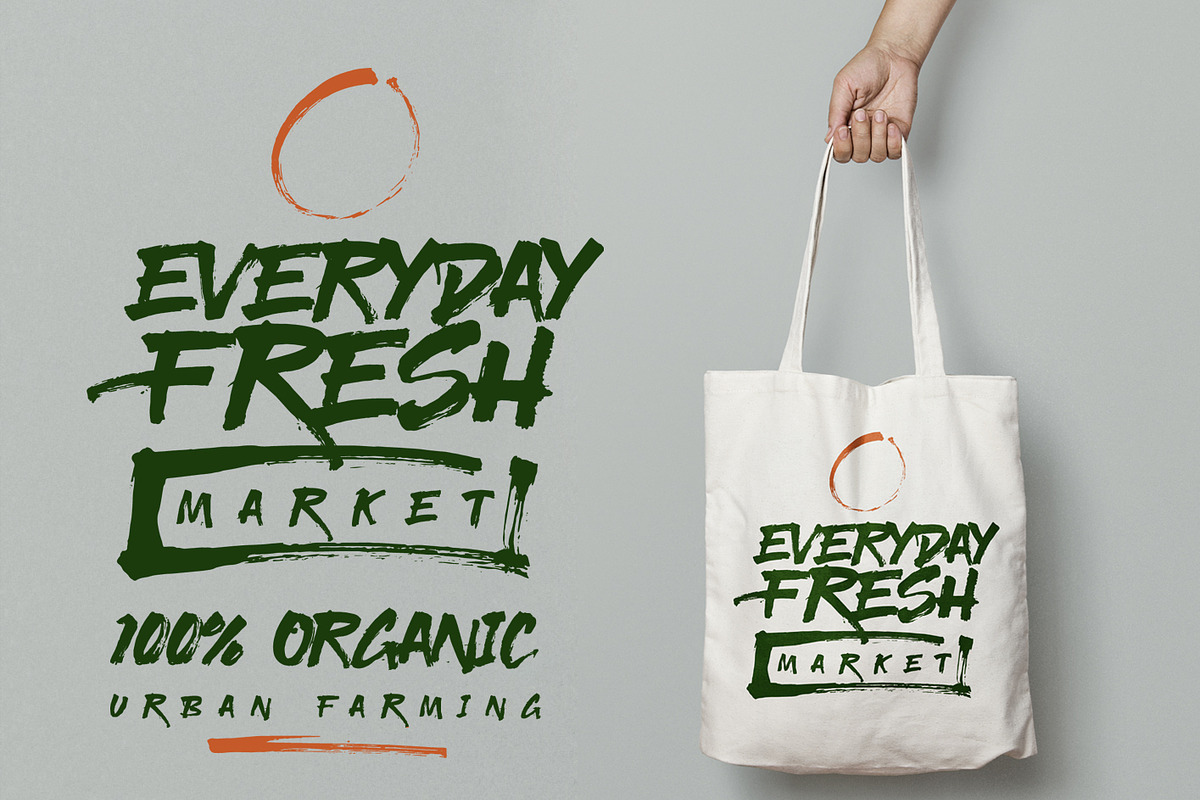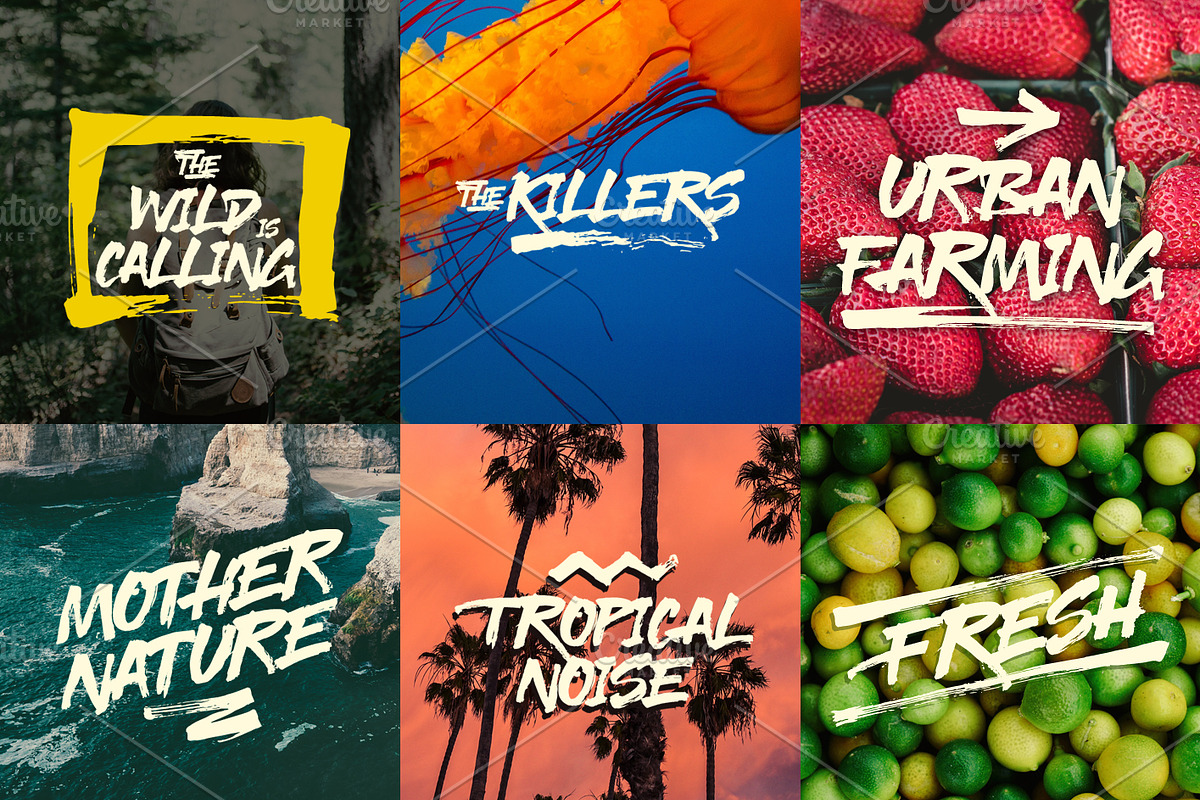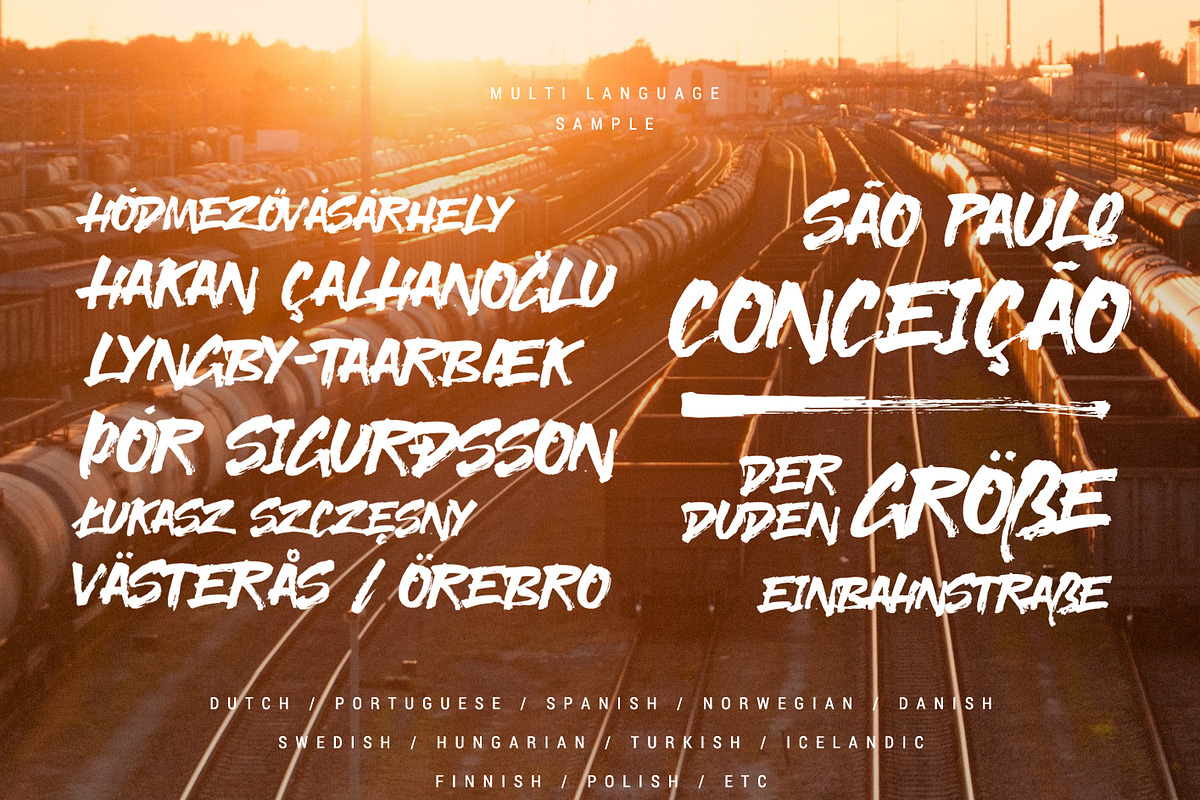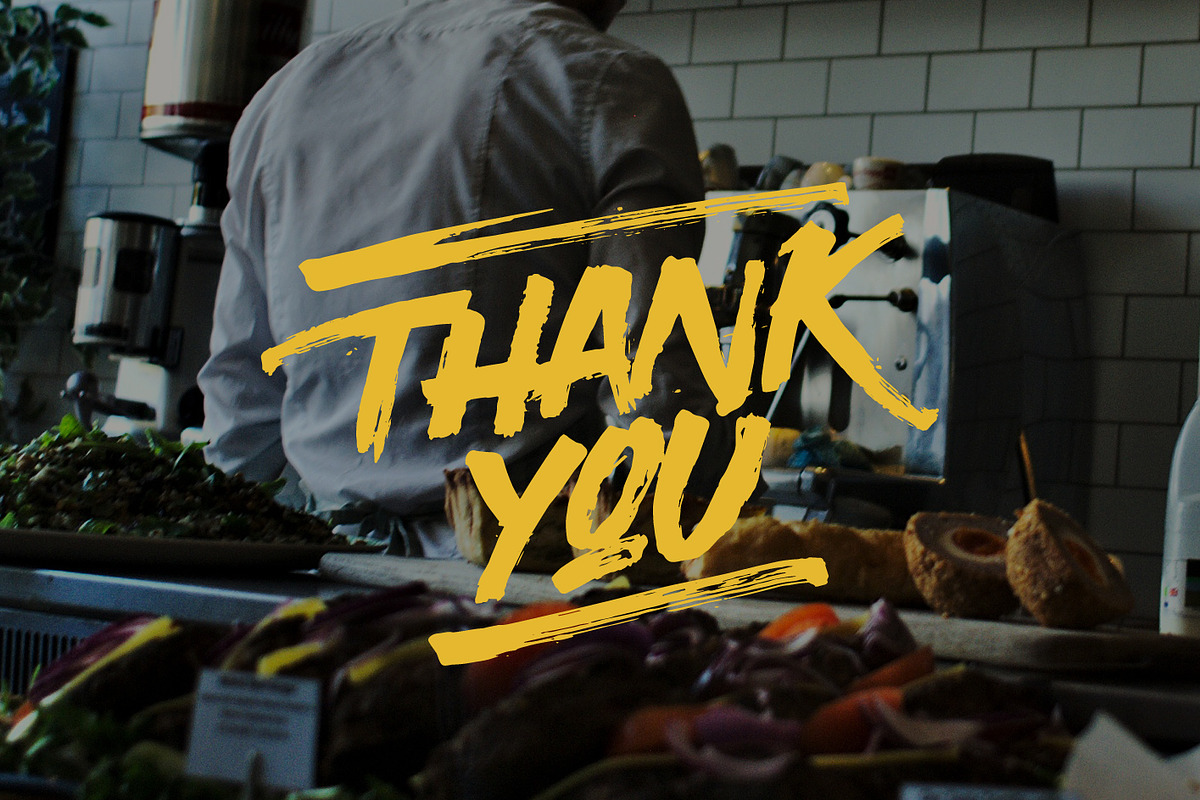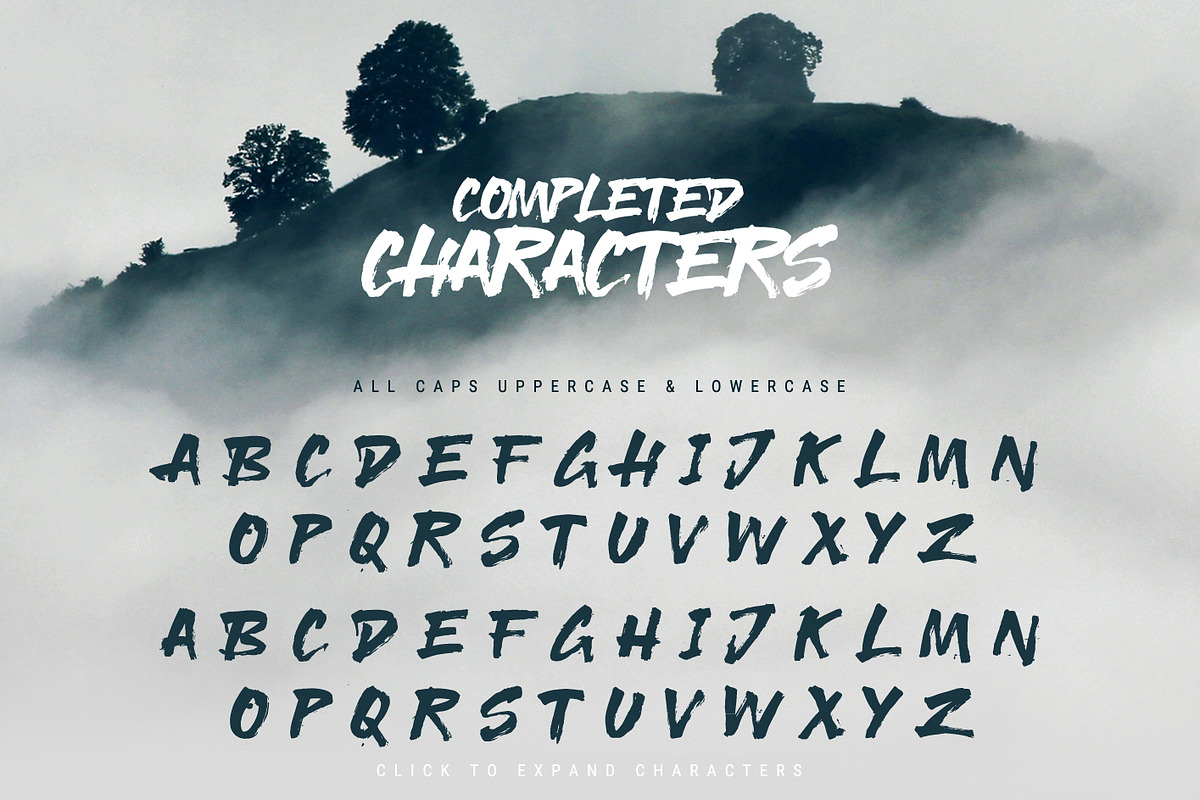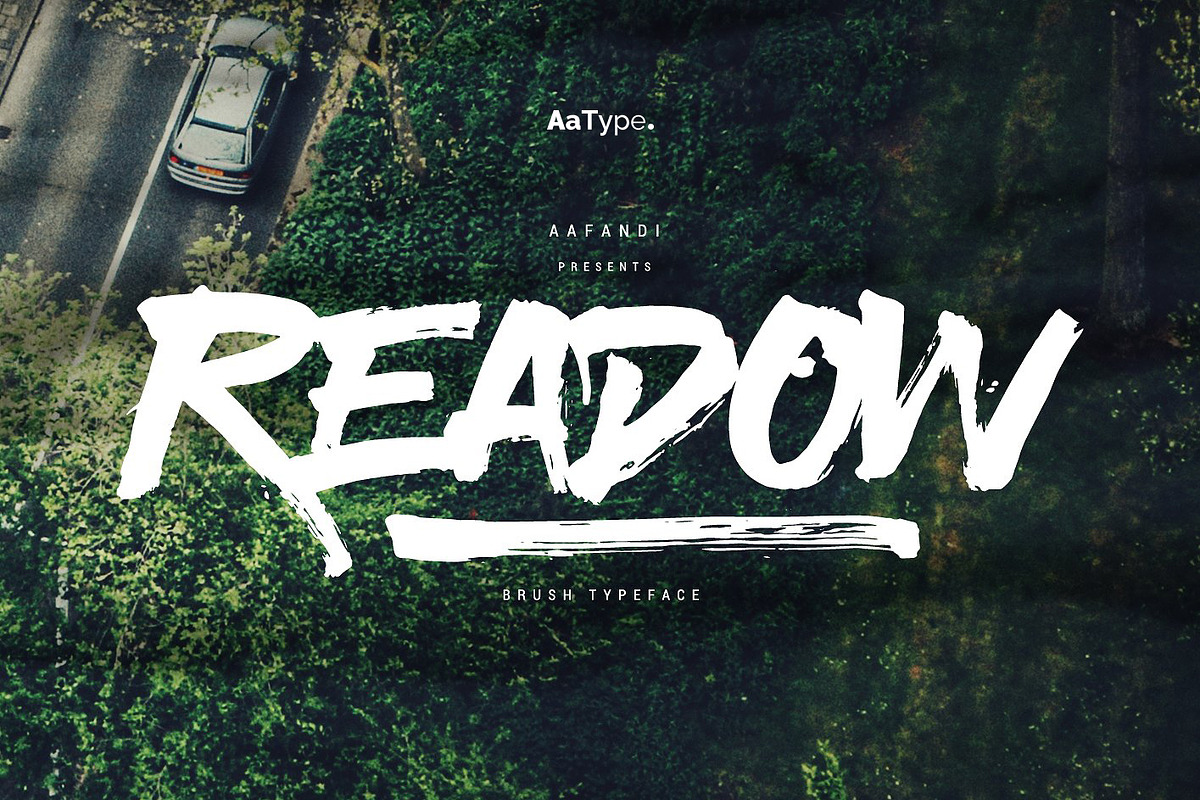
Readow Brush Fontsz
Readow is a brush handwriting typeface designed to make your design or your hand-lettering easily look more louder and bold. Perfect & Ideal for Logotype, Quotes, Packaging, Flyer, Poster, Records Cover, Social Media Banner, and Event Merchandise.
Readow features comes with All Caps Uppercase & Lowercase, Numeral, Punctuation, Stylistic/Alternate Characters, and also Support Multi Language.
Multi Languages
English, French, Portuguese, Italian, Spanish, Turkish, Dutch, Finnish, Norwegian, Swedish, Danish, Icelandic, Hungarian, Rumanian, etc.